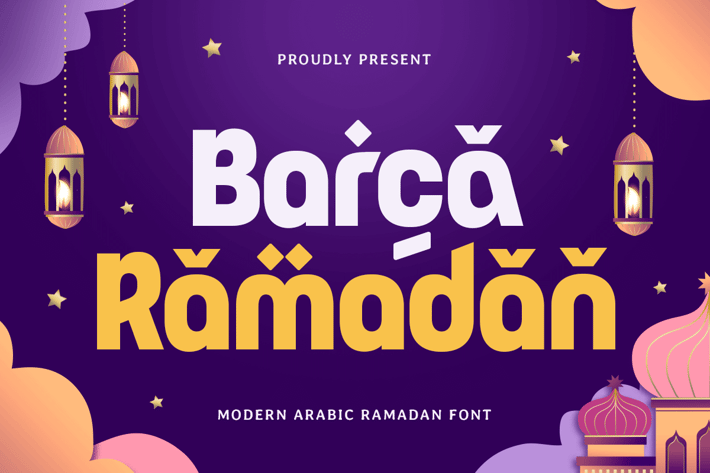
Barca Ramadan - Modern Arabic Ramadan Font
Infused with Ramadan Festivity
Barca Ramadan captures the essence of Arabic typography with a modern bazar-inspired flair. Its design is both festive and contemporary, making it perfect for Ramadan-themed creations.
Perfect for Bazar and Celebration Designs
This font is ideal for Ramadan promotions, event posters, packaging, and branding projects. Its decorative elements convey a warm and festive atmosphere suitable for various cultural celebrations.
Versatile and Culturally Rich
Barca Ramadan blends modern design with Arabic tradition, offering multilingual support to connect with global audiences during Ramadan and beyond.
Alternates Characters Ready